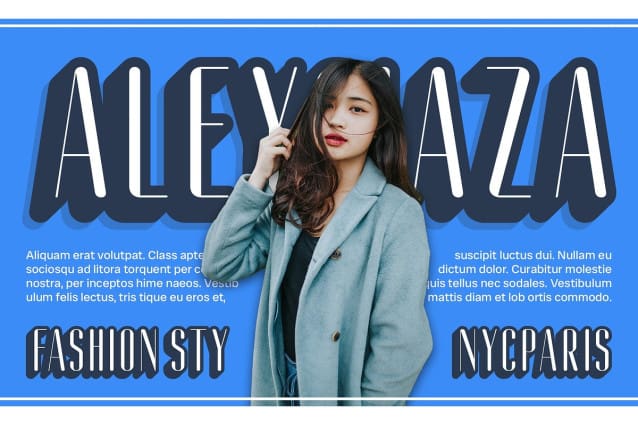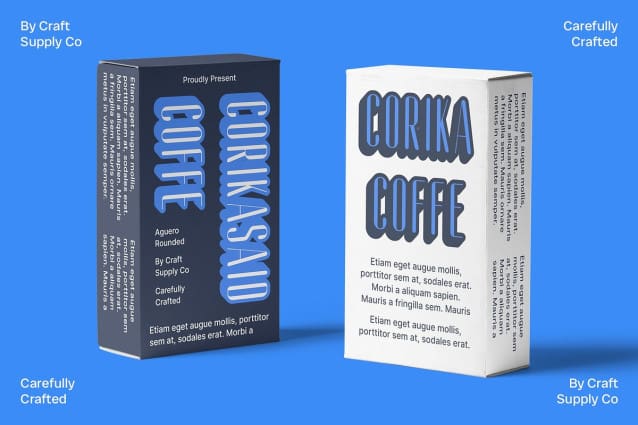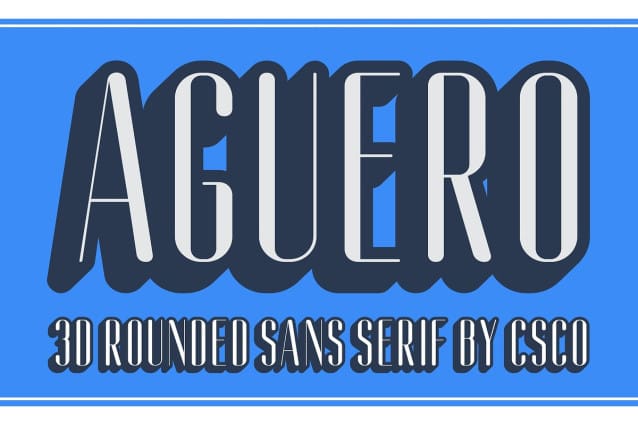
Aguero Sans Rounded 3D Font
Aguero Sans Rounded 3D Font is a modern sans serif font with a condensed, rounded shape, and a 3D effect, suitable for various creative designs. Its combination of sleek, rounded forms and three-dimensional appearance adds a sense of depth and modernity to any project.
With its condensed and rounded shapes, Aguero Sans Rounded 3D offers a friendly and approachable look. The 3D effect adds a sense of depth and realism, making it ideal for designs that need to stand out.
Whether you’re designing a poster, logo, or website, this 3D font is sure to make an impact. Its versatile design and 3D effect make it suitable for a wide range of creative applications, from advertising to branding to editorial design.
Despite its intricate appearance, this font is versatile and easy to use. The font works well in both large and small sizes, making it suitable for a variety of applications. With its blend of condensed, rounded shapes, and 3D effect, Aguero Sans Rounded 3D adds a modern and dynamic touch to any design.